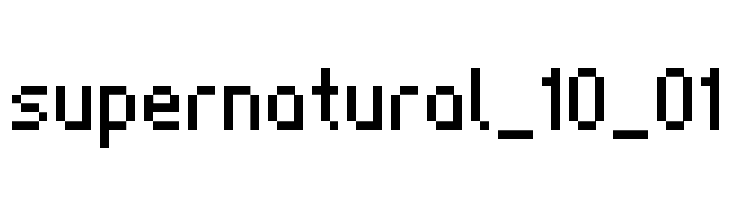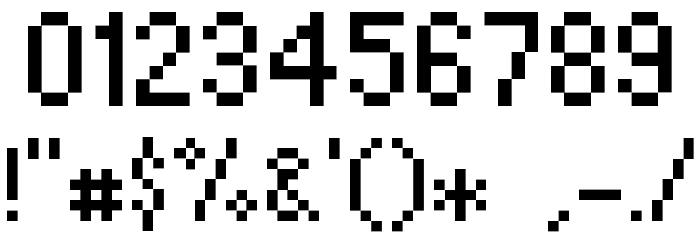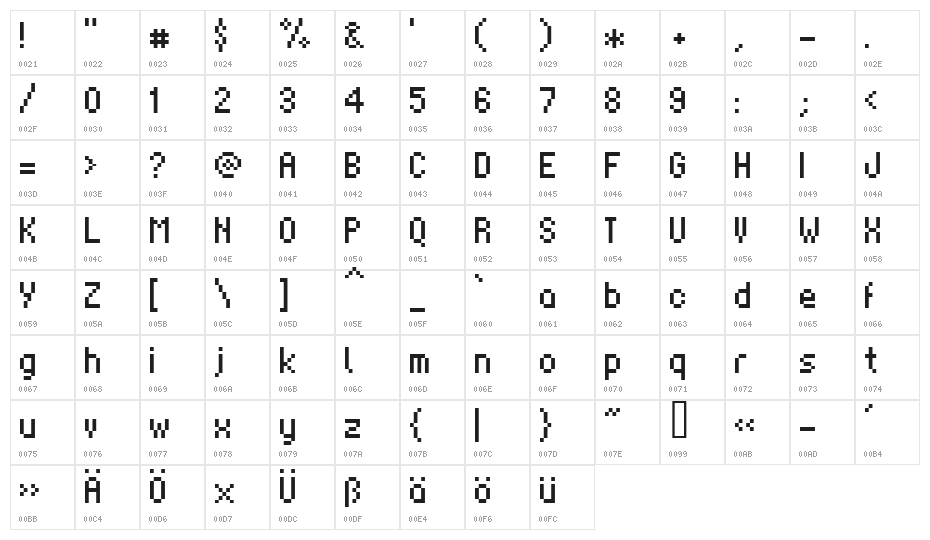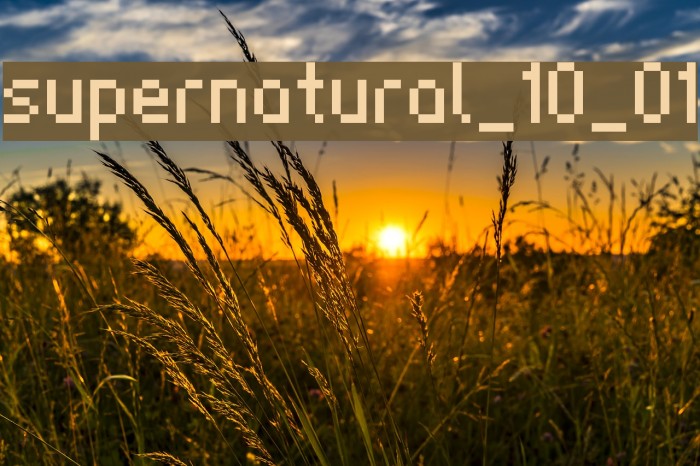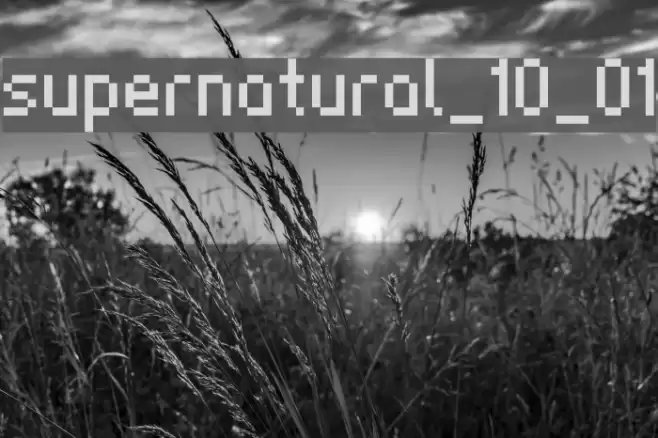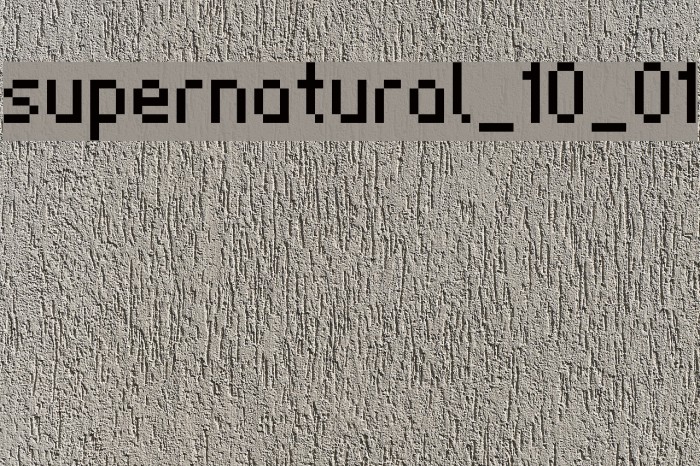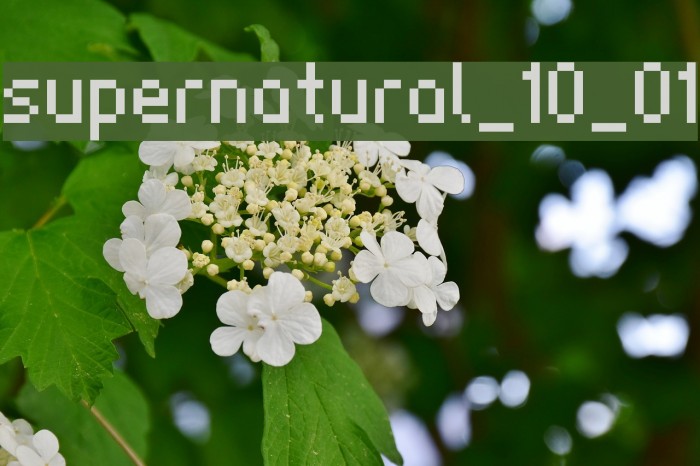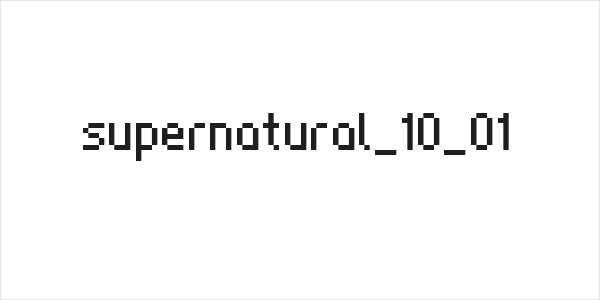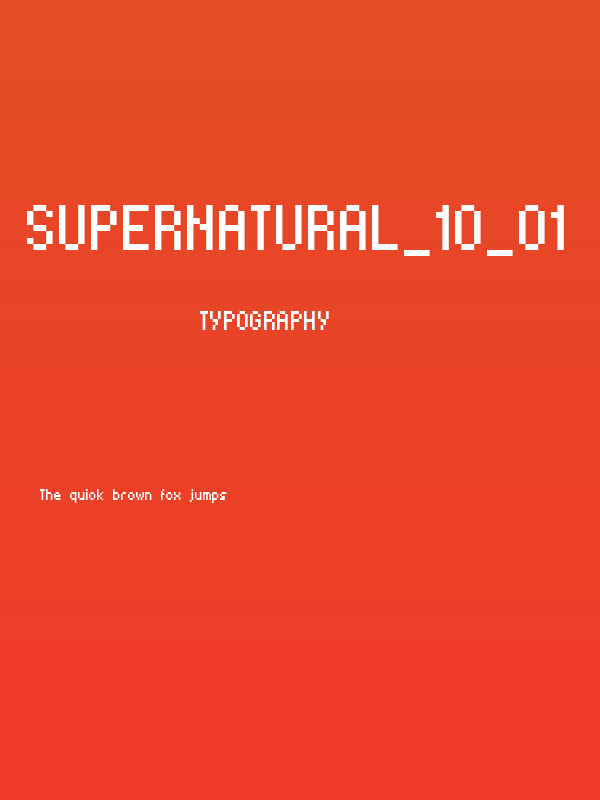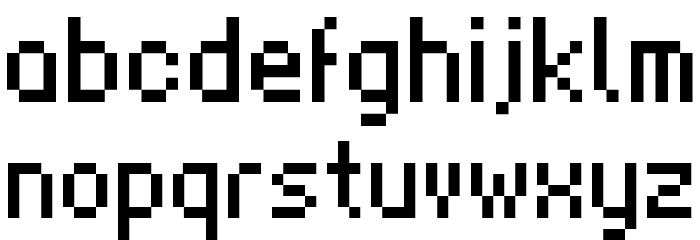
supernatural_10_01 Font
supernatural_10_01 Description
This font features a pixelated, blocky design reminiscent of early digital displays and retro video games. Each character is composed of square pixels, giving it a distinctly digital and geometric appearance. The uppercase and lowercase letters maintain a consistent height, contributing to a uniform look. The numbers and special characters follow the same pixelated style, ensuring cohesion across all glyphs. This font's simplicity and clarity make it highly legible, even at smaller sizes. Its nostalgic appeal is ideal for projects that aim to evoke a sense of retro technology or vintage gaming.
| Use Case | Logos, Headlines, Digital displays |
| Proposed Projects | Ideal for retro video games, digital art projects, tech-themed designs, and nostalgic branding. |